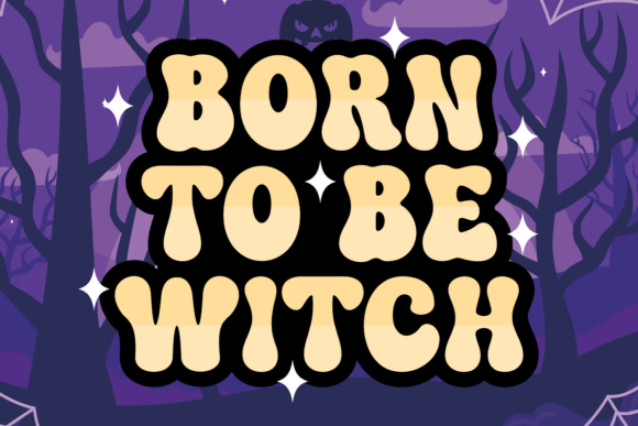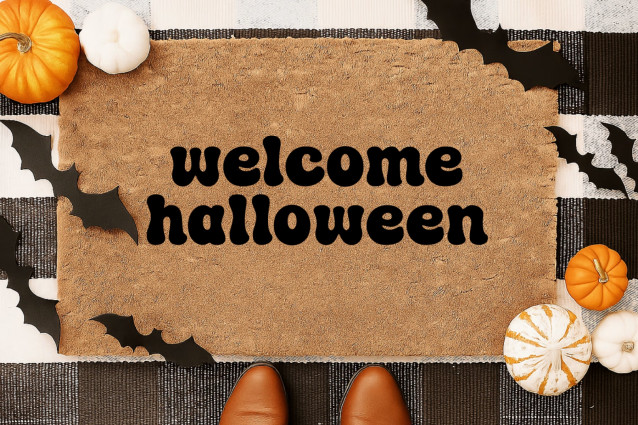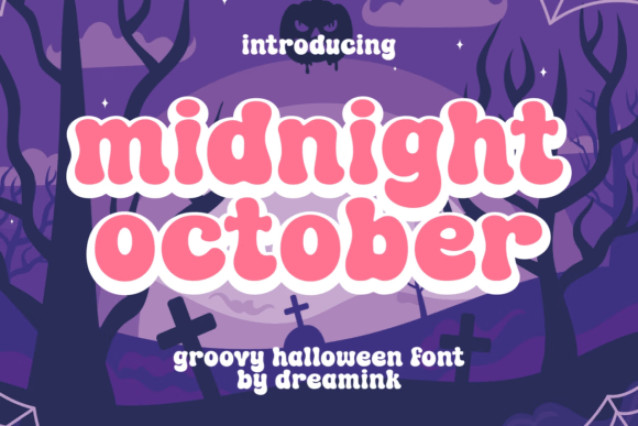
Midnight October Font
Immerse your design projects in an air of vintage allure with Midnight October, a retro Halloween-inspired font. Whether you’re personalizing a coffee mug, fashioning a unique T-shirt, or creating a charming sticker, Midnight October serves as the perfect accessory, infusing an element of nostalgia and spectral delight into your work.
This nostalgic typography exudes a hauntingly appealing aesthetic, offering an ideal balance of playful charm and classic sophistication. Use Midnight October and let your creativity speak volumes in the language of enchanting, retro intrigue.